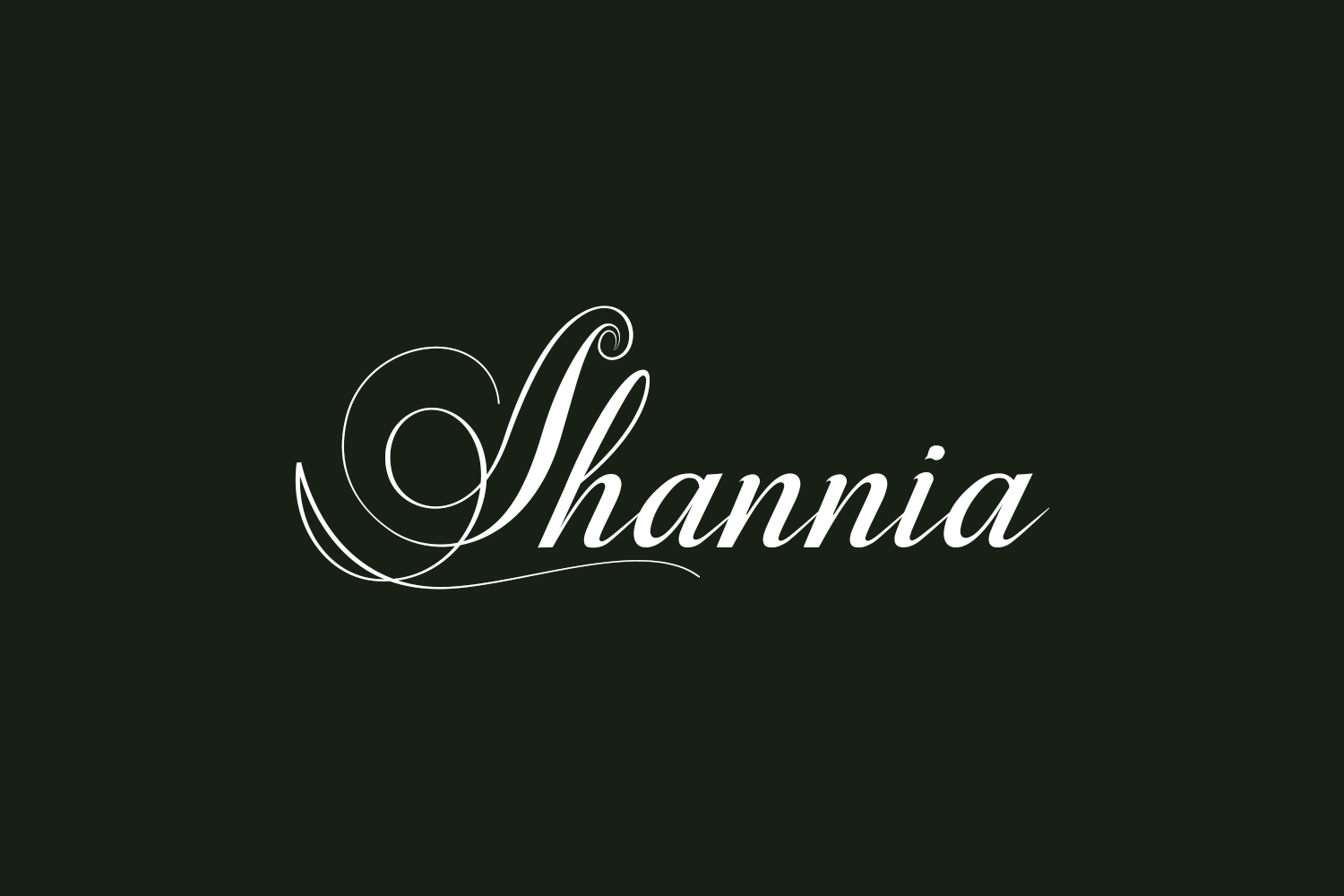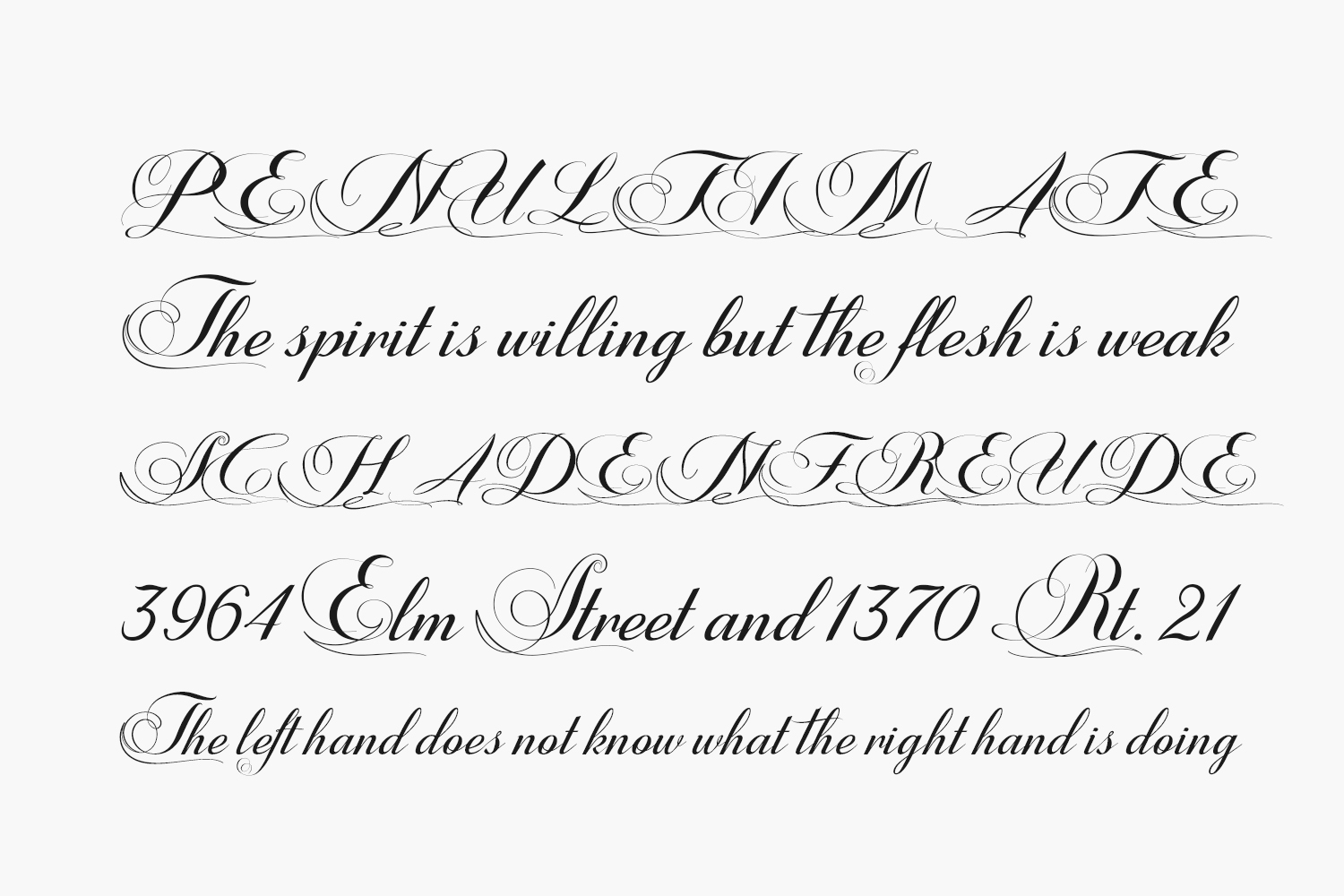
Introducing Shannia Free Font Family a graceful and fluid handwritten font that exudes elegance. With its meticulously crafted and harmonious characters, this font seamlessly complements a vast array of design projects. Discover the versatility of “Shannia” as it effortlessly adapts to various design themes, making it the perfect choice for a diverse range of creative endeavors. Enhance your projects with the beauty of “Shannia,” and witness how it effortlessly adds a touch of sophistication to your work. Get your hands on this exquisite font and elevate your designs to new heights. Shannia Free Font Family is free for personal use only. Please purchase the full version for commercial use.